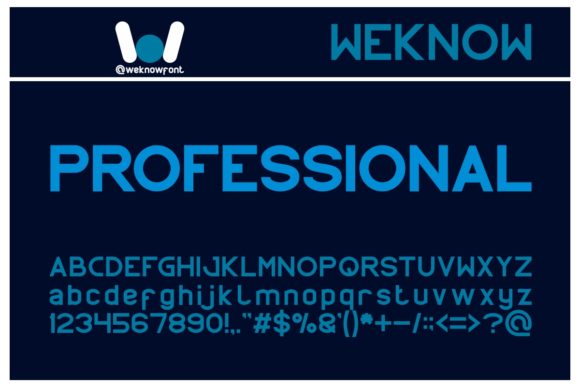
Introducing Professional Font—the remarkable sans serif font that brings a touch of sophistication and elegance to your creative designs. With its clean lines, crisp edges, and high readability, Professional Font is the perfect choice for a wide range of projects, from art books and posters to presentations and web design.
Unleash the creative possibilities with Professional Font and experience the following benefits:
* **A Timeless Aesthetic:** Designed with a classic and enduring style, Professional Font stands the test of time. Its timeless appeal ensures that your designs remain relevant and visually pleasing for years to come.
* **Versatile and Adaptable:** Professional Font is highly versatile, effortlessly complementing various projects and design styles. Whether you're creating an art book, a poster for a cultural event, or a captivating presentation, Professional Font seamlessly adapts to your vision.
* **Clarity and Readability:** Experience exceptional clarity and readability with Professional Font. Its carefully crafted letterforms ensure effortless reading, enhancing the user experience and delivering your message with impact.
* **A Touch of Distinction:** Professional Font adds a touch of distinction to your designs, setting them apart from the ordinary. Its unique character and elegant appearance captivate audiences, leaving a lasting impression.
* **Effortless Creativity:** Unleash your creativity with Professional Font and let your ideas flow effortlessly. Its intuitive design enables you to focus on your vision without the hassle of technical complexities.